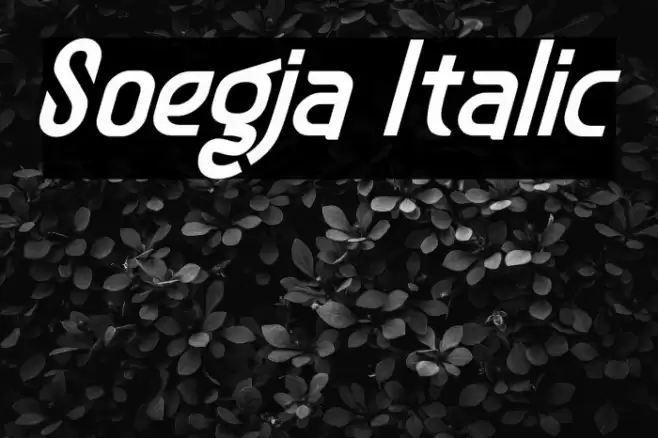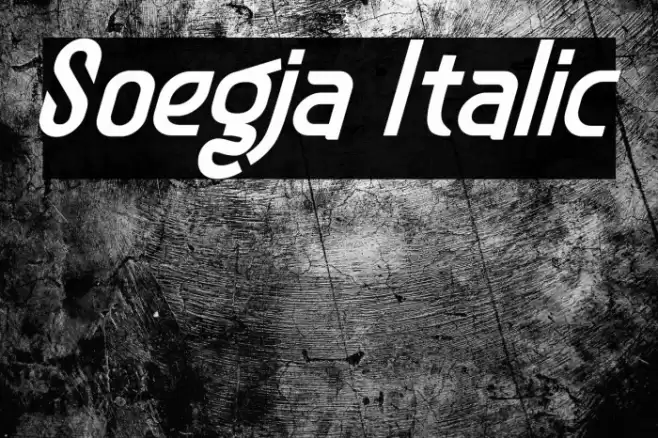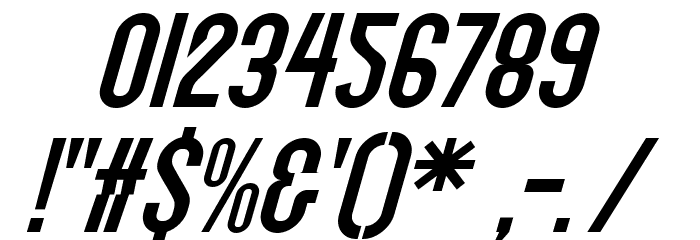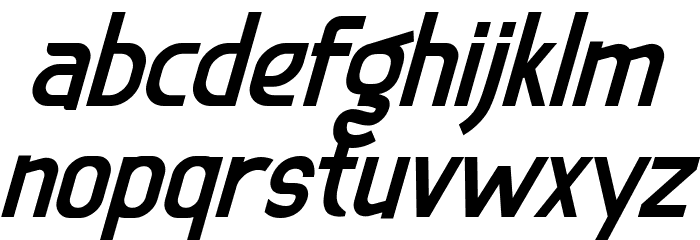
Soegja Italic Font
Soegja Italic Description
This font features a dynamic and modern italic style, characterized by its sharp angles and clean lines. The letters are slightly condensed, giving it a sleek appearance. The uppercase and lowercase letters maintain a consistent slant, enhancing the italicized effect. The numerals and special characters are designed to match the overall aesthetic, with a uniform stroke width that ensures readability. The font's boldness adds to its striking presence, making it suitable for attention-grabbing designs. Its contemporary look is ideal for projects that require a touch of sophistication and modernity.
A modern, bold italic font with sharp angles and a sleek, condensed style from Uncategorized fonts.
- Proposed Projects: Ideal for branding, advertising, headlines, and digital media where a modern and bold statement is needed.
- Use Case: Headlines, Logos, Advertising